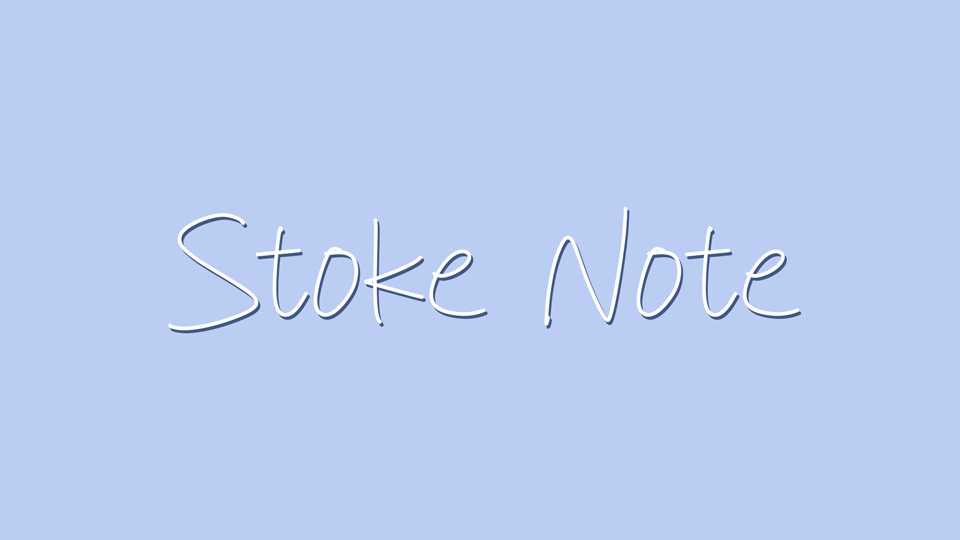
Download Stoke Note font, a simple hand drawn typeface that adds a minimalist touch to your designs. With its clean and slender letterforms Stoke Note font offers a sense of sophistication and refinement.